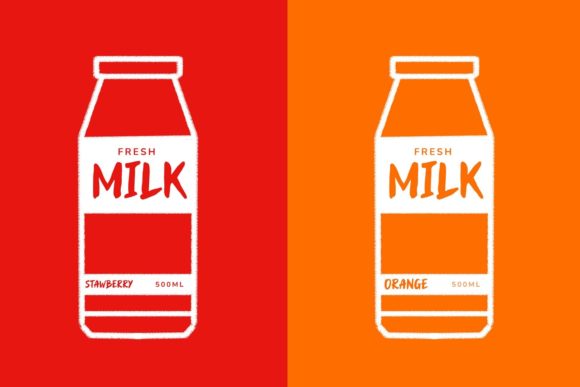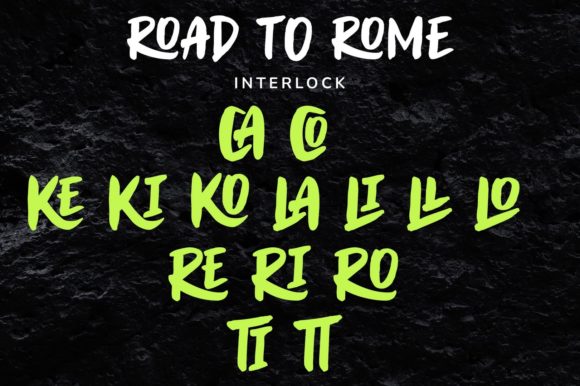
Road to Rome Font
db-ku.com - Script & Handwritten -- Road to Rome is a casual, relaxed and urban styled handwritten font. This paint brushed font is PUA encoded which means you can access all glyphs and swashes with ease!